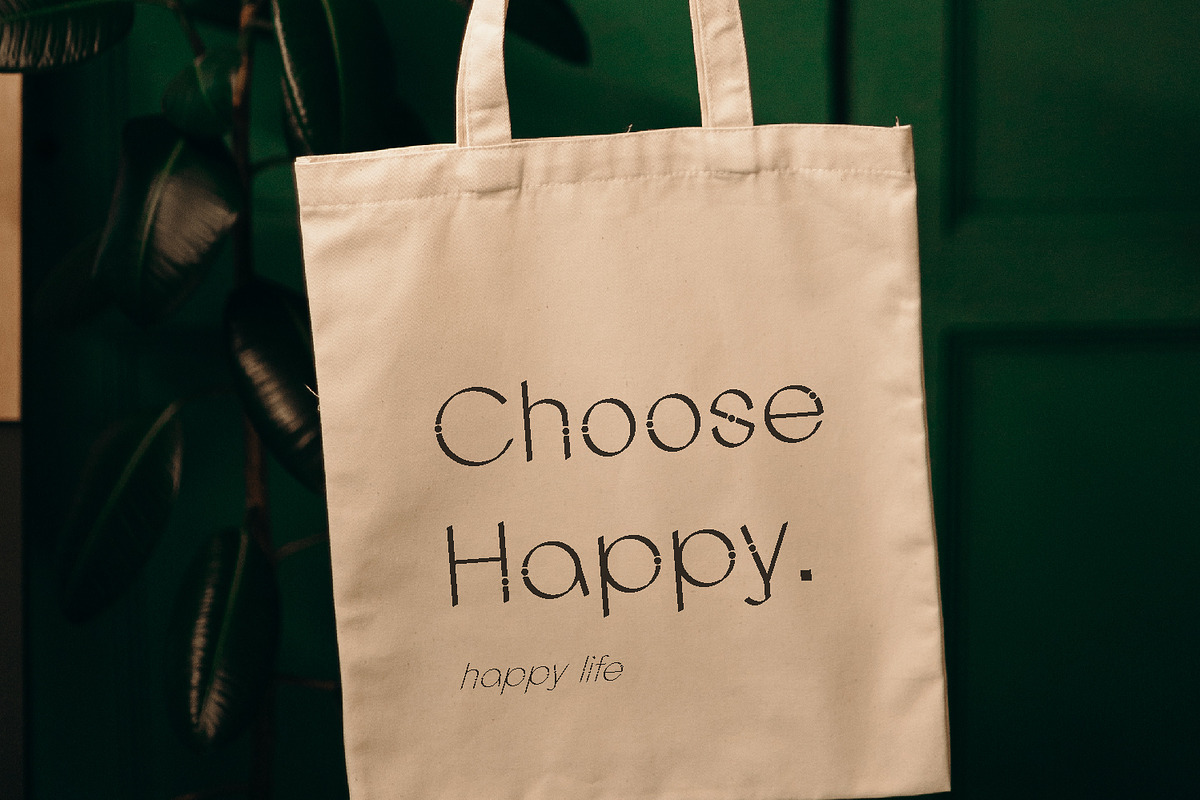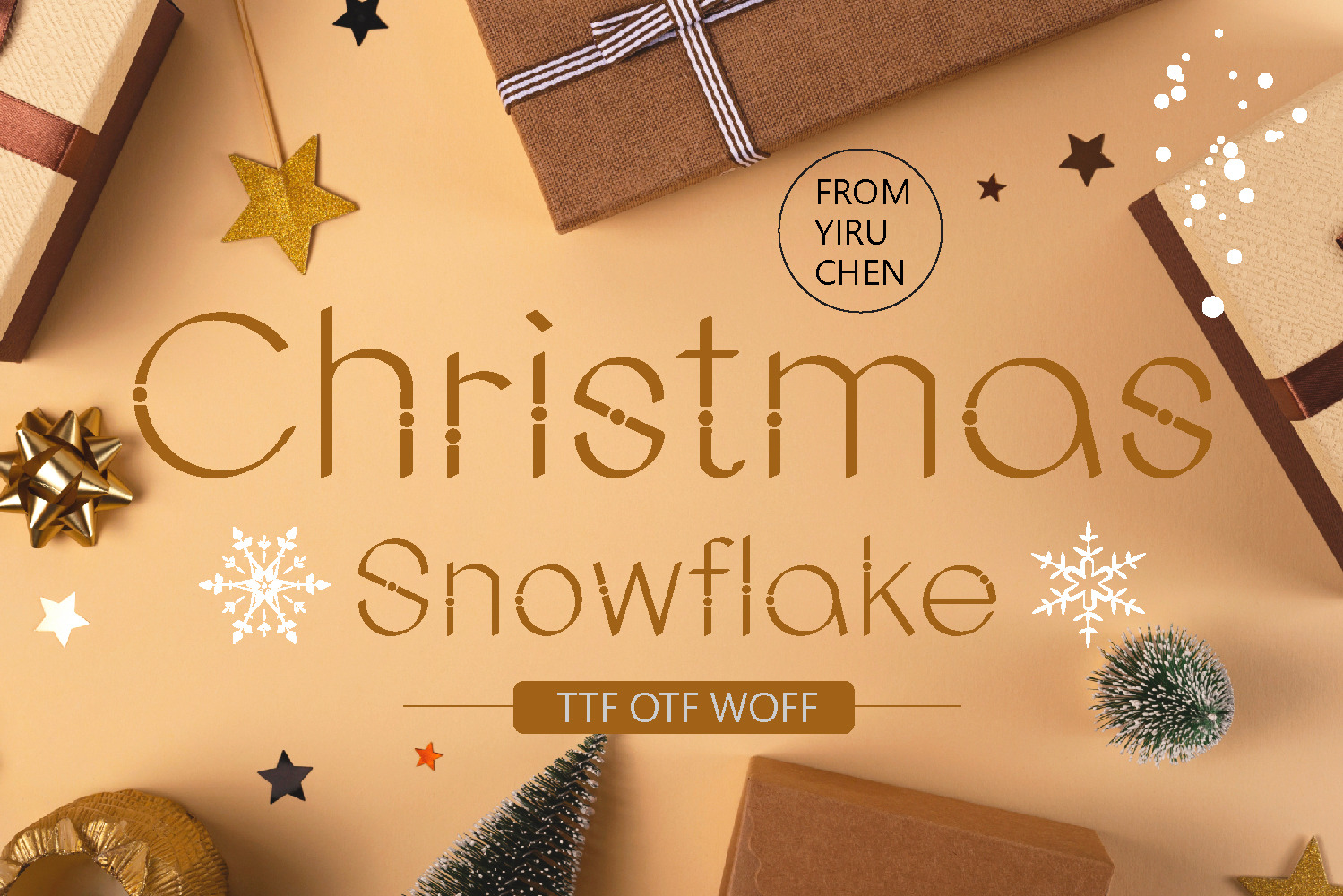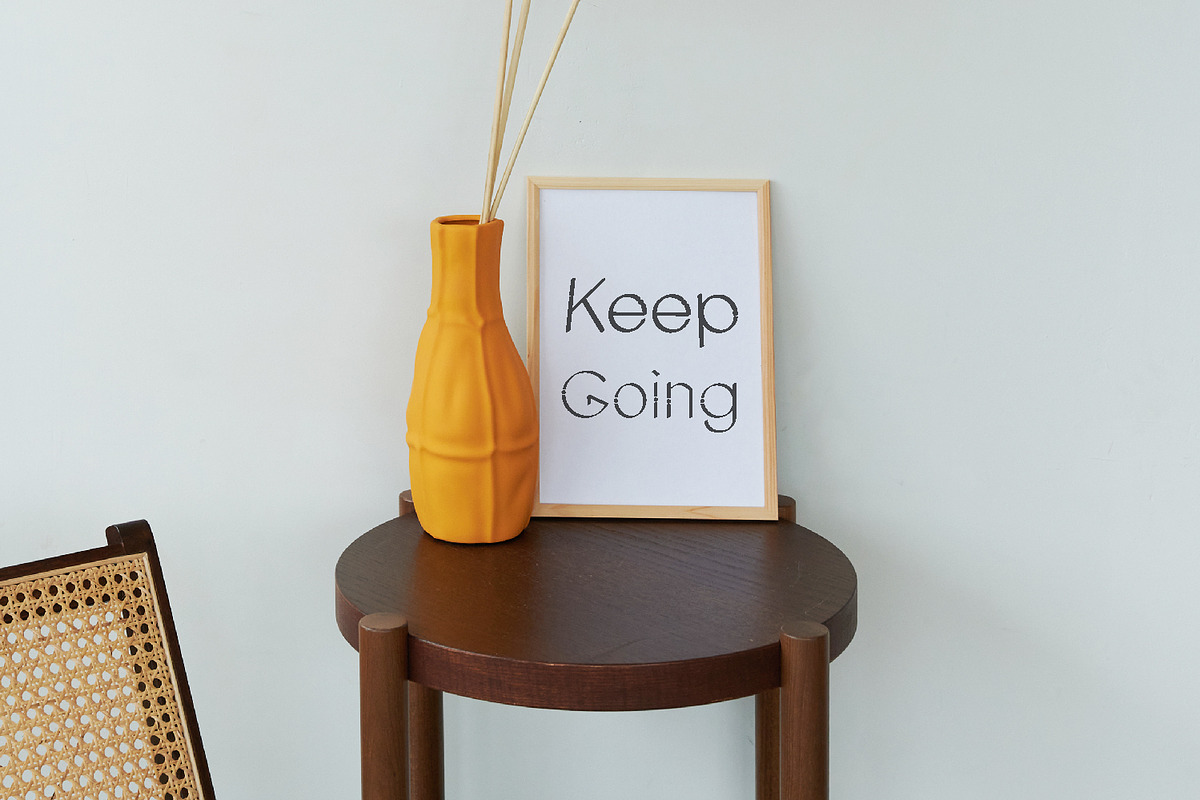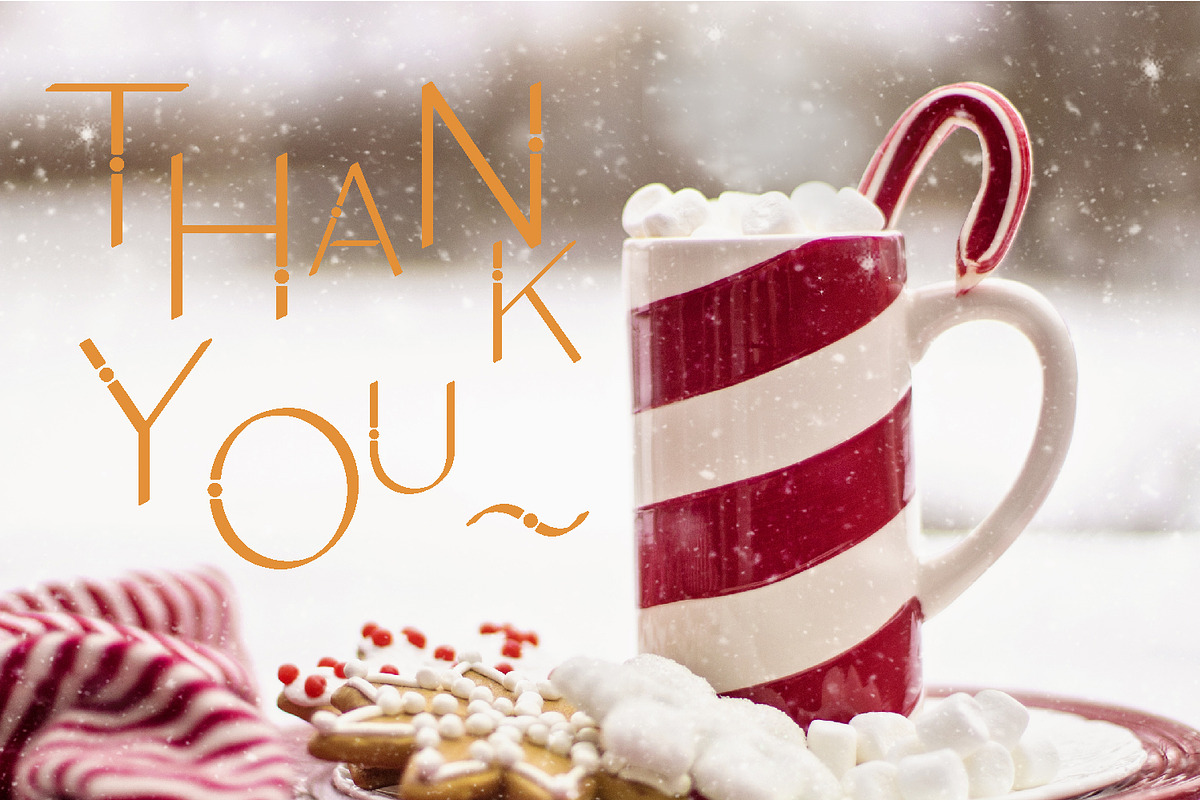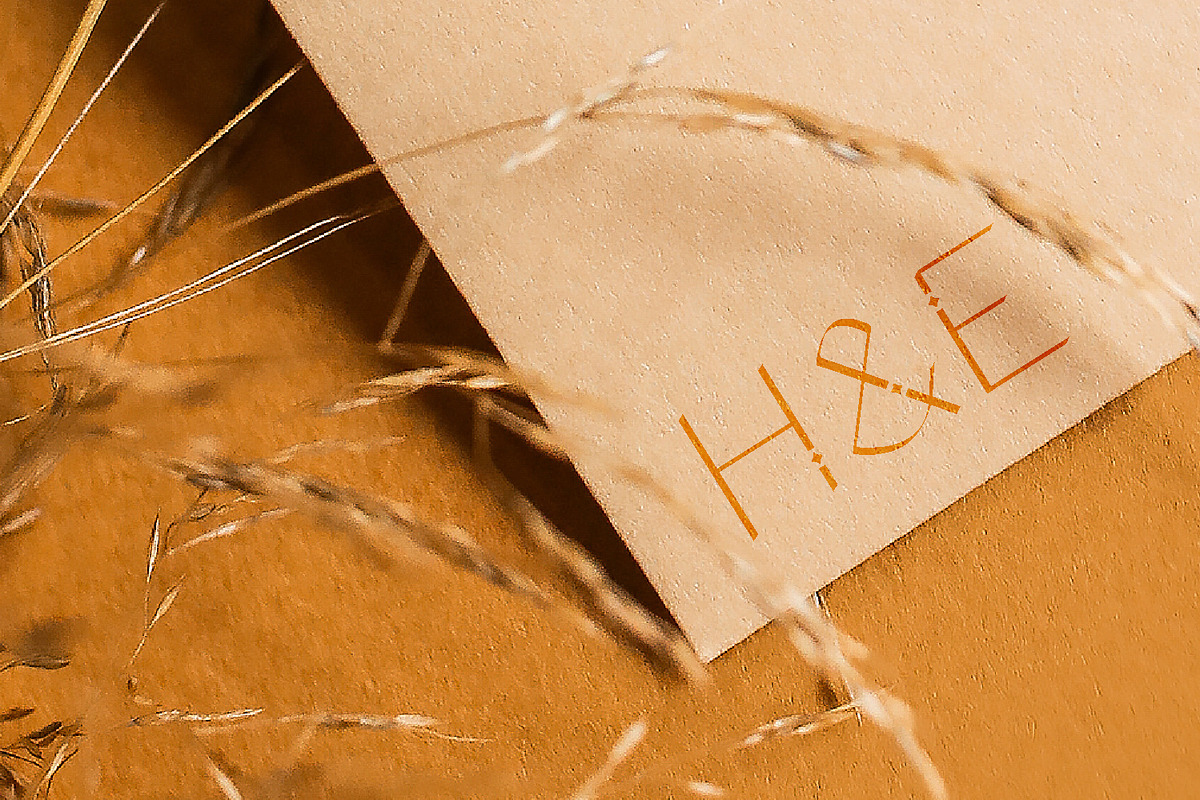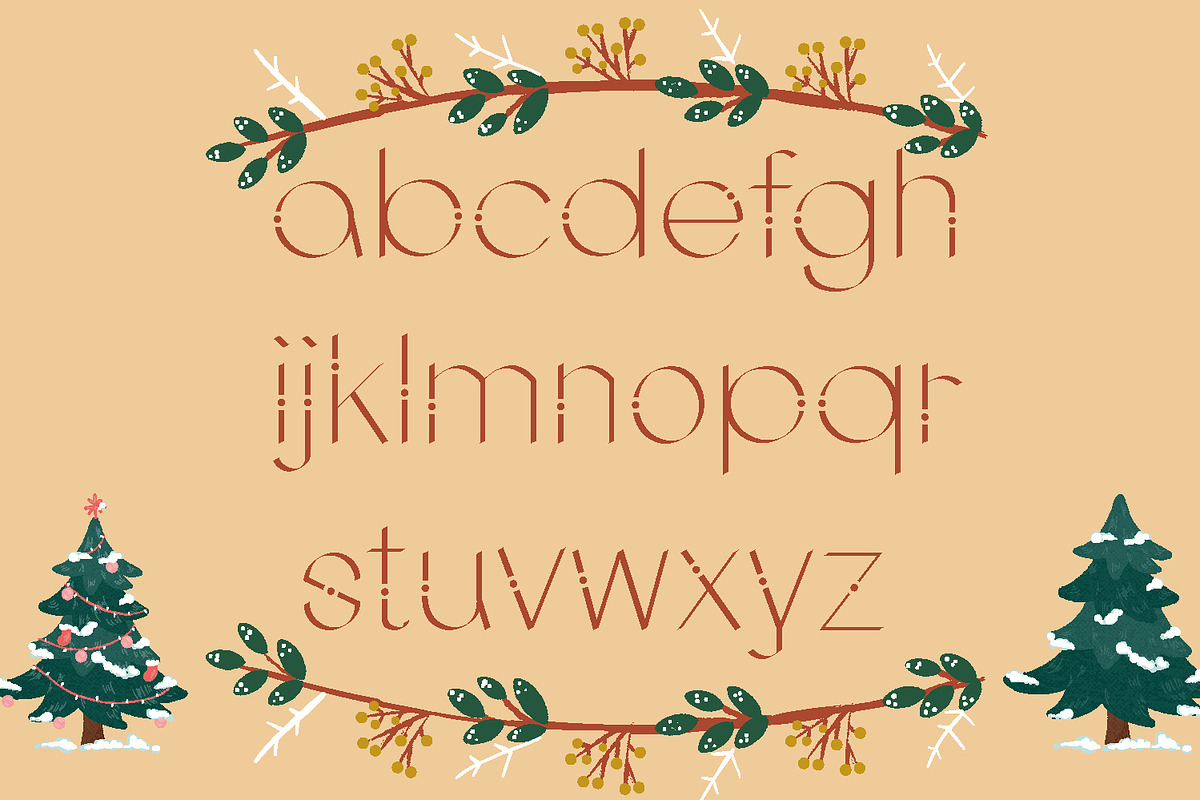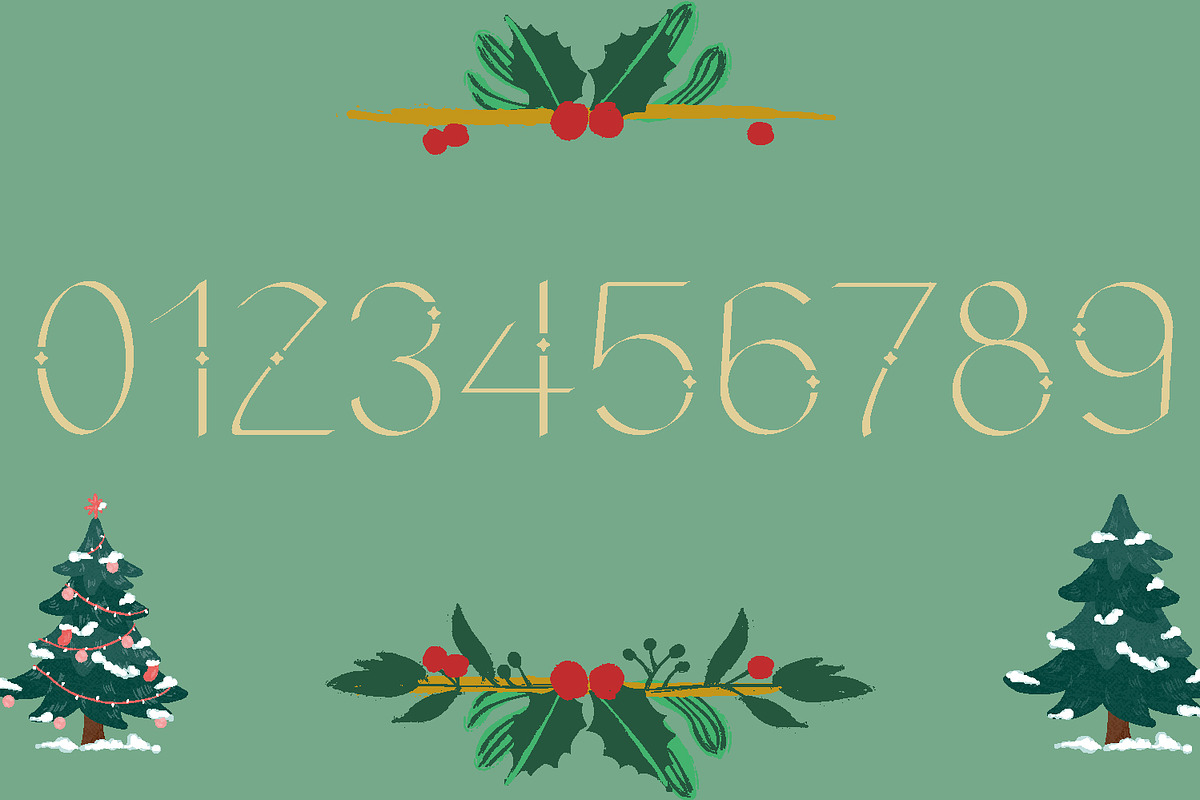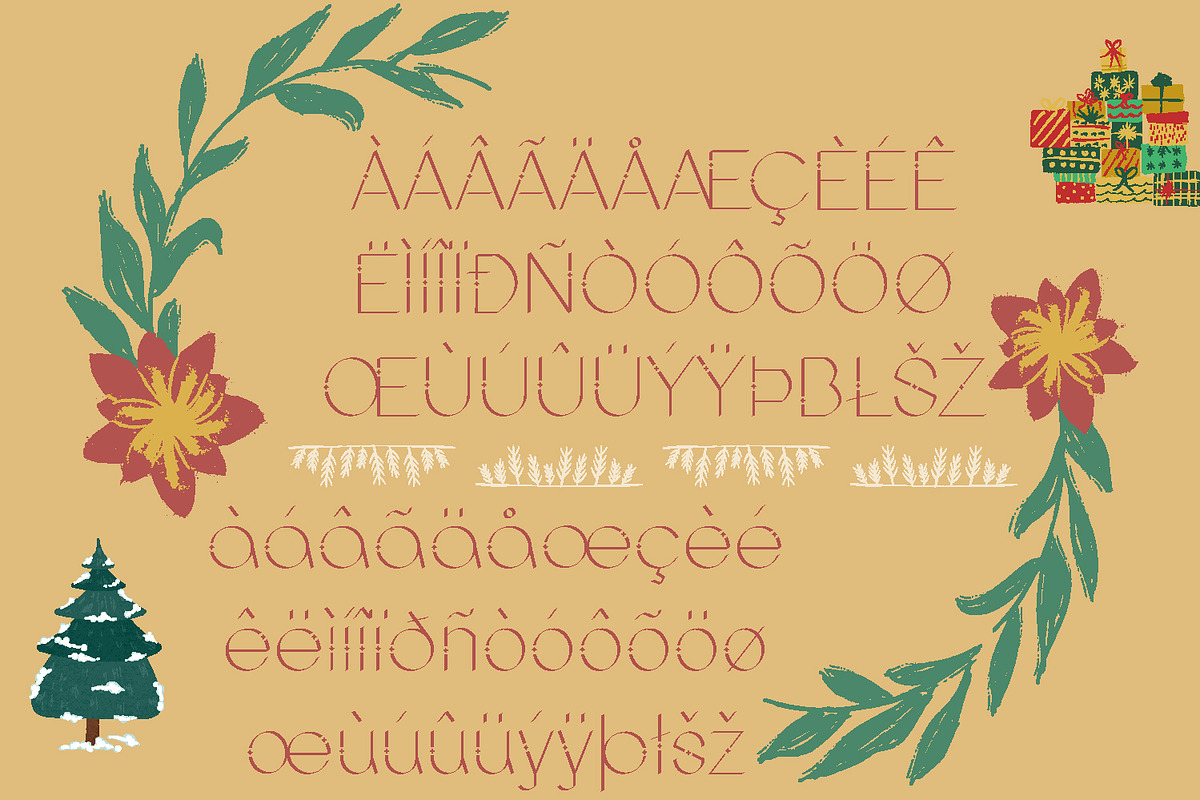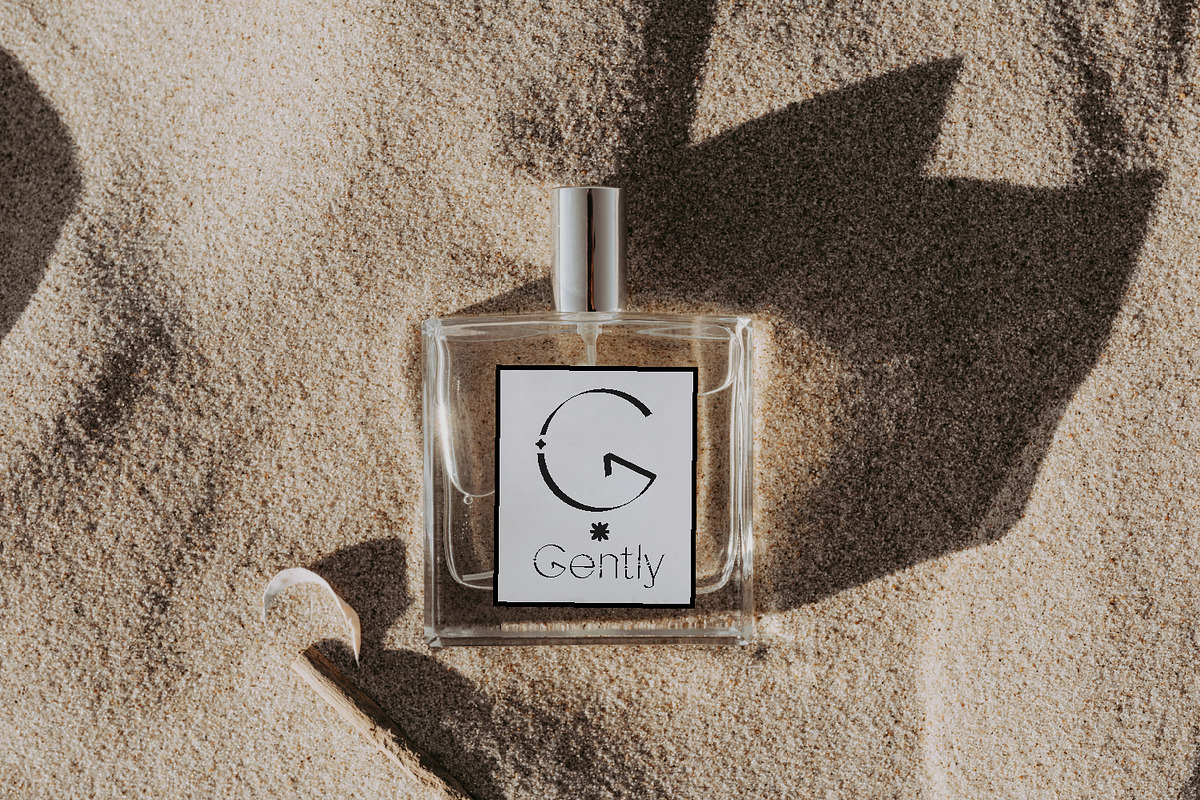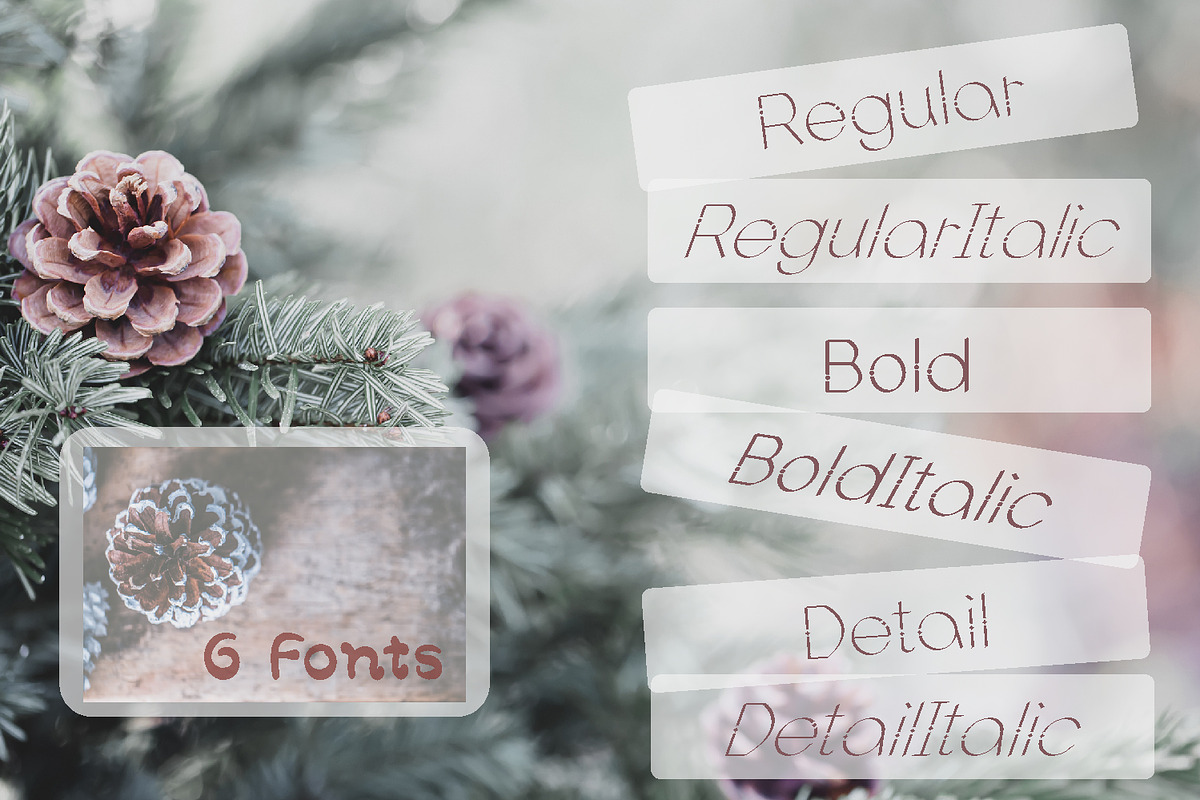
Christmas Snowflake Sans Serif Font
Christmas Snowflake Modern Sans Serif Font has six fonts. Bold, BoldItalic, Regular, RegularItalic, Detail and DetailItalic. Modern sans serif font, smooth lines, clean and unique. Very suitable for use in festivals and commemorative moments. This font is suitable for brand design, title, poster, packaging, clothing, banner, magazine, book design, business card design, website design, instagram, pintestest, etc. Provide wonderful and changeable design.